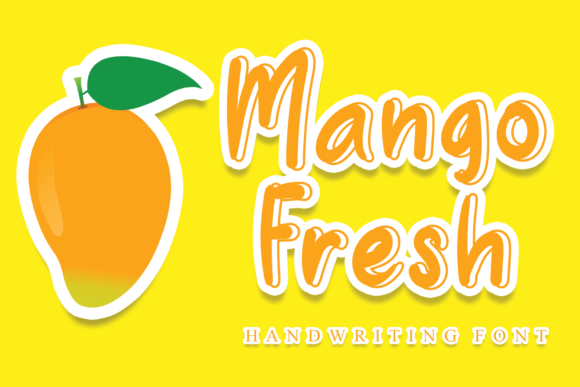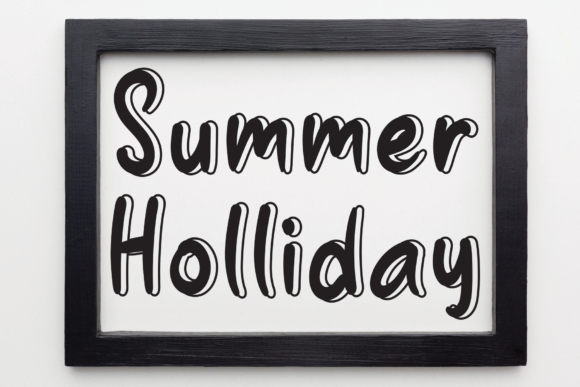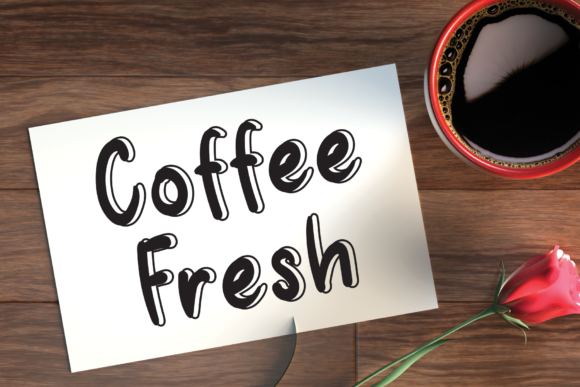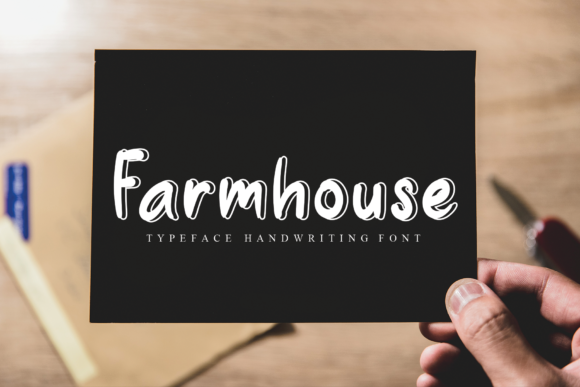
Mango Fresh Font
About Mango Fresh Font
Mango Fresh is a trendy and joyful handwritten font. Cute and friendly, this font is ideal for each of your casual designs.